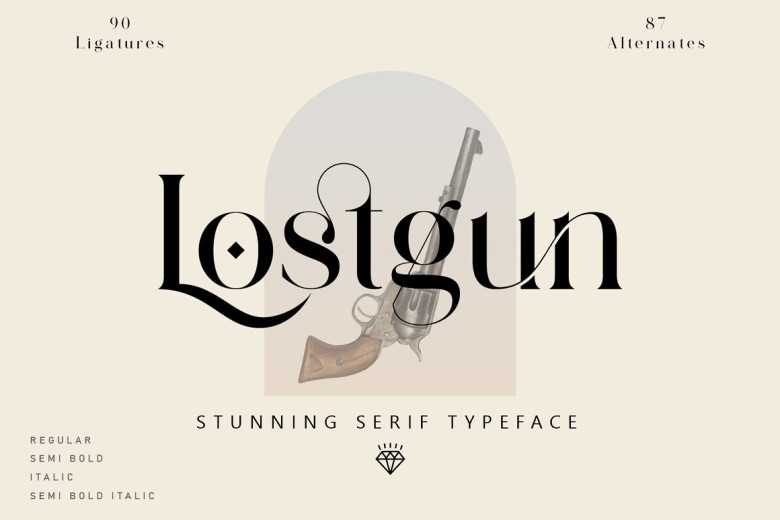
Lostgun Font
Lostgun is an elegant typeface for uppercase and lowercase letters that looks amazing both large and small. Ideal for logos and headings, its smooth curvatures add classy touch to any project.
Lostgun Serif Font